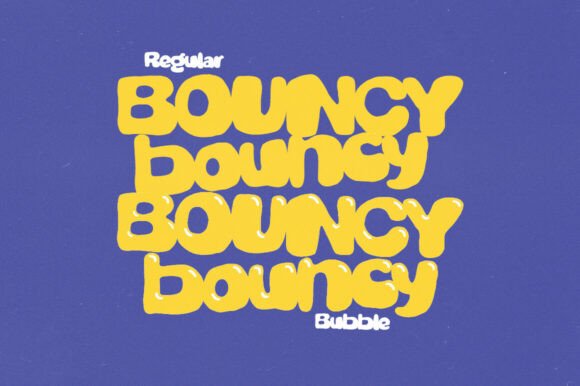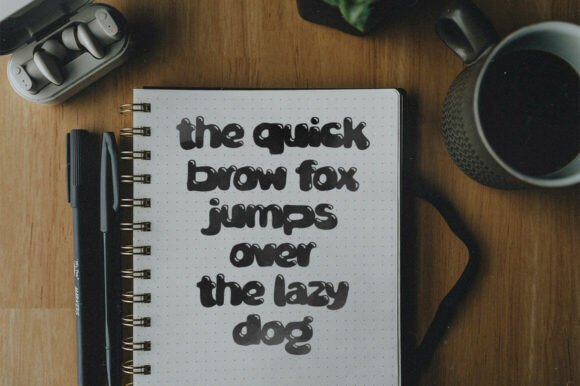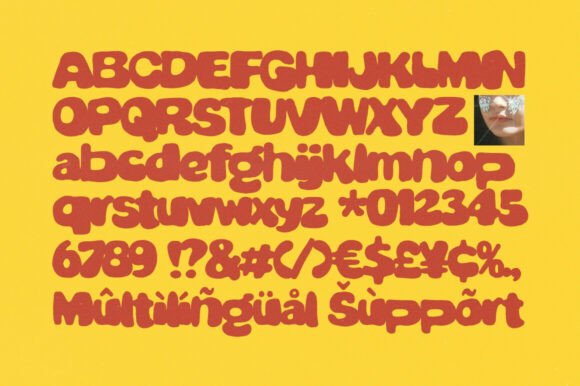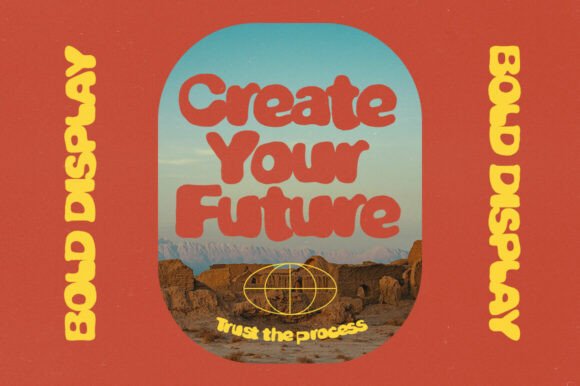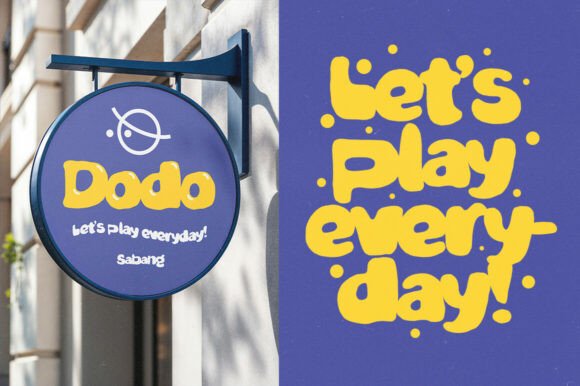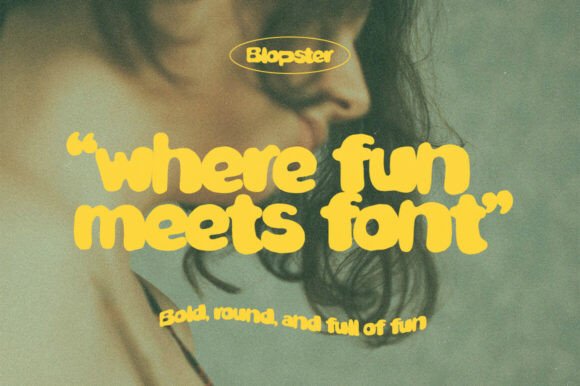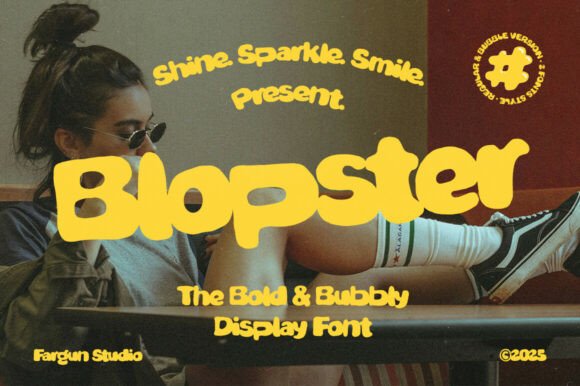
Introducing Blopster Font: The Ultimate Playful Display Font
Are you tired of using the same old fonts for your designs? Look no further! Say hello to Blopster, the ultimate playful display font that is sure to take your creative projects to the next level. Blopster comes in two bold, expressive styles – the regular chunky version and a dripping Bubble variant that adds an extra layer of fun and excitement to your designs.
What is Blopster Font?
Blopster is a bold, bouncy, and playful display font that is perfect for designers and crafters who want to add a touch of personality to their work. With its thick curves and joyful energy, Blopster instantly grabs attention and is sure to make your designs stand out. Whether you’re working on a kids’ project, creating packaging for a candy or toy company, or designing eye-popping visuals, Blopster is the perfect font for you.
The Two Styles of Blopster
One of the best things about Blopster is that it comes in two distinct styles: the regular chunky version and the dripping Bubble variant. The regular chunky version is perfect for creating clean, quirky bold designs that are sure to grab attention. On the other hand, the Bubble variant takes things to the next level with its gooey, glossy drips that add a fun and playful touch to your designs.
Why You’ll Love Blopster
So, why should you choose Blopster for your next design project? Here are just a few reasons:
- Two styles = double the creative power: With Blopster, you get two font styles in one, giving you the flexibility to mix and match for contrast, mood shifts, or layered effects.
- Instantly grabs attention: Blopster’s thick curves and joyful energy make it perfect for designs that need to stand out.
- Perfect for a variety of projects: From kids’ branding and packaging to posters, flyers, and YouTube thumbnails, Blopster is versatile enough to use for a wide range of creative projects.
Perfect Use Cases for Blopster
So, what types of projects is Blopster perfect for? Here are a few ideas to get you started:
- Kids branding: Blopster is perfect for creating fun and playful branding for kids’ products and services.
- Slime shops: Add a touch of fun and excitement to your slime shop’s packaging and marketing materials with Blopster.
- Candy & toy packaging: Make your candy or toy packaging stand out with Blopster’s bold and playful font.
- Posters, flyers, and YouTube thumbnails: Use Blopster to create eye-popping visuals that grab attention and drive engagement.
- Merch: Add a touch of personality to your merchandise with Blopster’s fun and playful font.
- Stickers and streetwear: Blopster is perfect for creating bold and playful designs for stickers and streetwear.
Get Ready to Pop with Blopster
Whether you’re going for clean-cut or dripping with style, Blopster has it all. With its two bold and expressive styles, Blopster gives you the flexibility to match your vibe and create designs that stick, splash, and leave a lasting impression.